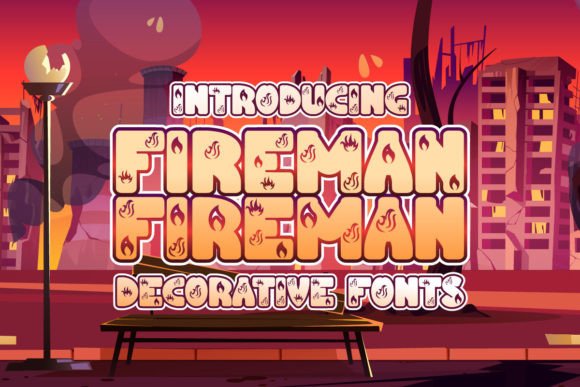
Unleash the fiery spirit of typography with Fireman Font, the captivating decorative font family that sets your designs ablaze. Crafted by the ingenious minds at Barock Studio, Fireman Font is not just a font; it's a blazing inferno of creativity, ready to ignite your imagination and set your projects aflame with unique charm.
Picture this: a mesmerizing logo that dances with flames, a poster that crackles with energy, or a website that burns with passion. With Fireman Font, the possibilities are endless. Let your words dance in the fiery glow of this font, captivating your audience and igniting their emotions with every stroke.
Fireman Font is more than just aesthetically pleasing; it's a strategic masterpiece designed to elevate your projects to new heights. Its bold and distinct design effortlessly draws attention, making your message impossible to ignore. Whether you're crafting stunning social media graphics, eye-catching advertisements, or unforgettable branding materials, Fireman Font will ensure your creations stand out from the crowd like a blazing sun.
With its inherent versatility, Fireman Font adapts seamlessly to a myriad of design styles and themes. Whether you're aiming for a vintage aesthetic, a modern twist, or something completely out of this world, this font is your trusty companion, ready to transform your vision into a reality. Unleash your creativity and watch as Fireman Font adds an enchanting touch to your projects, leaving a lasting impression that burns brighter than the sun.